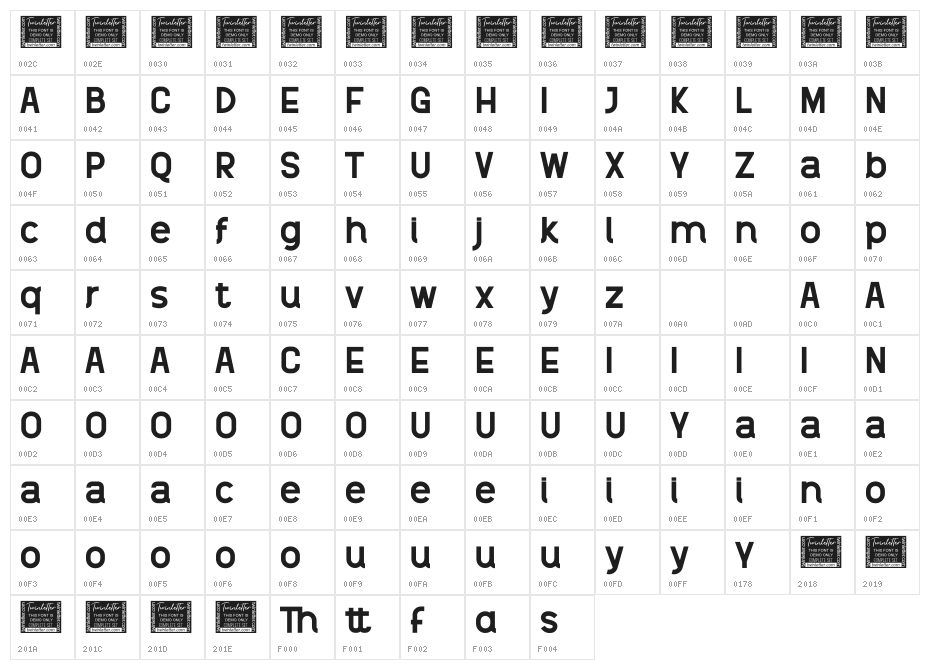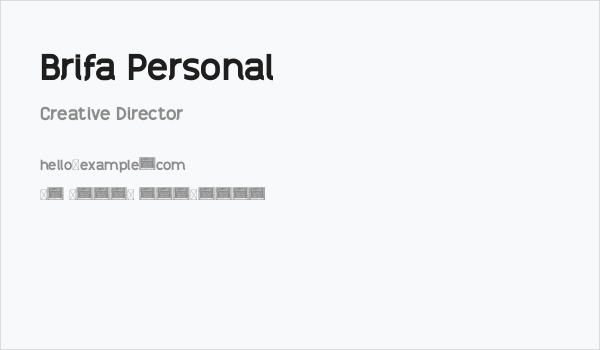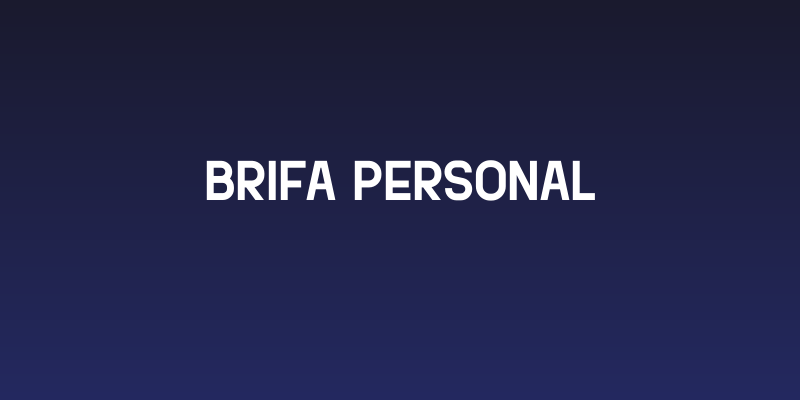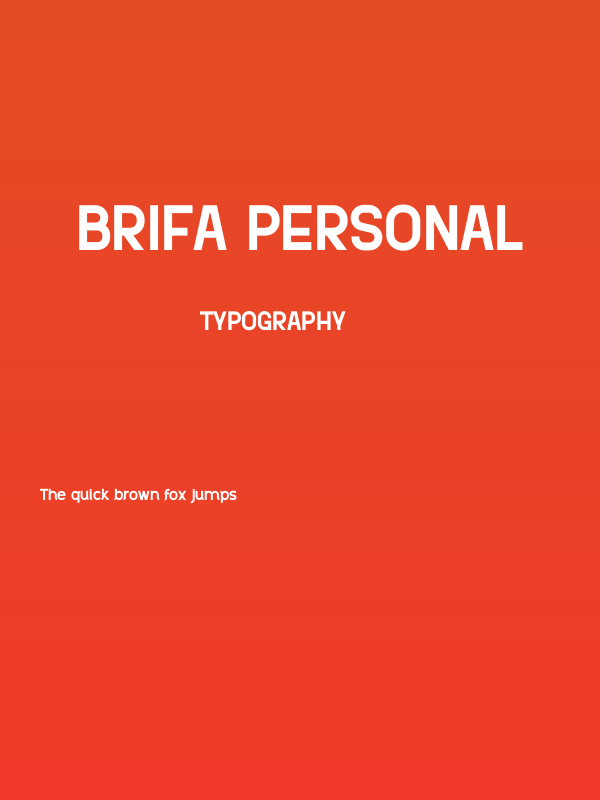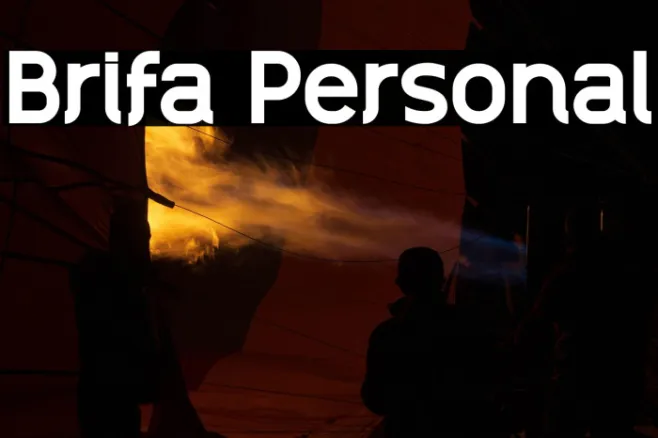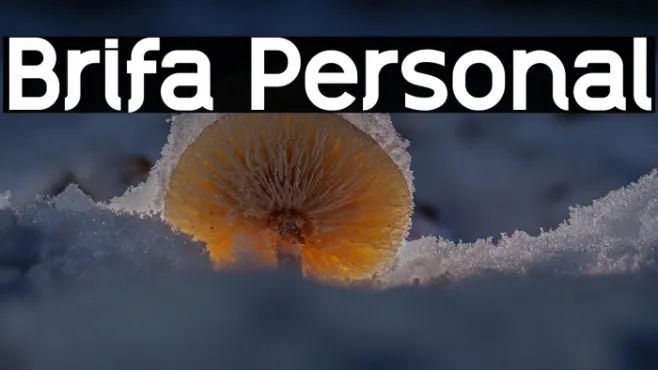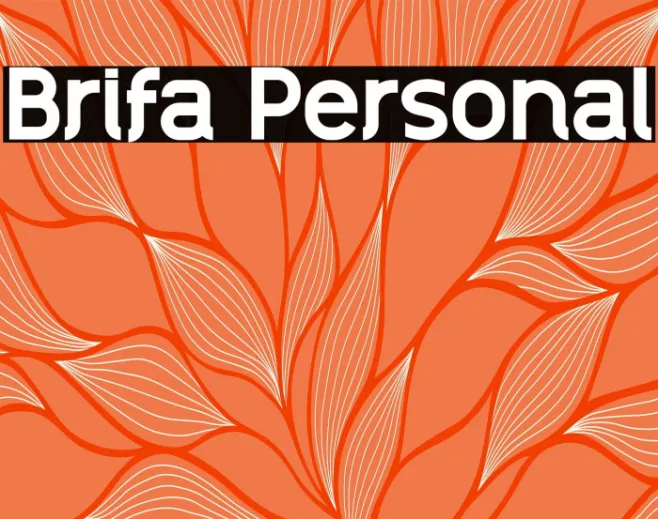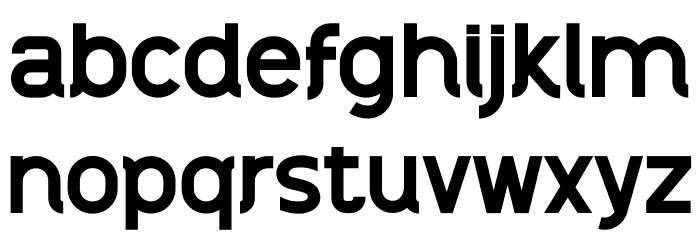
Brifa Personal Font
Brifa Personal Description
This font features a bold and modern sans-serif style with clean lines and a strong presence. The uppercase letters are uniform in height, while the lowercase letters maintain a consistent baseline, offering a harmonious look. The characters are well-balanced with a slightly condensed width, making them suitable for various design applications. The font's geometric structure provides a contemporary feel, while the consistent stroke width ensures readability across different sizes. The special characters are designed to match the overall aesthetic, maintaining the font's cohesive appearance.
| Proposed Projects | Ideal for branding, headlines, posters, and digital media where a strong, modern impression is desired. |